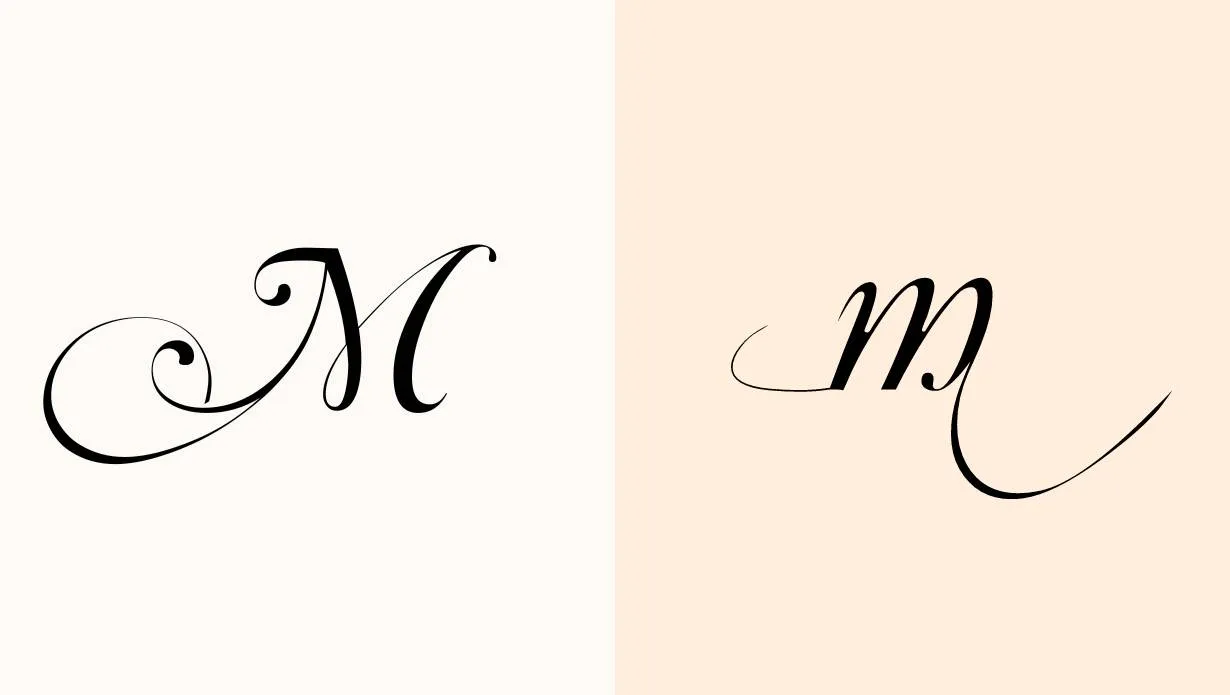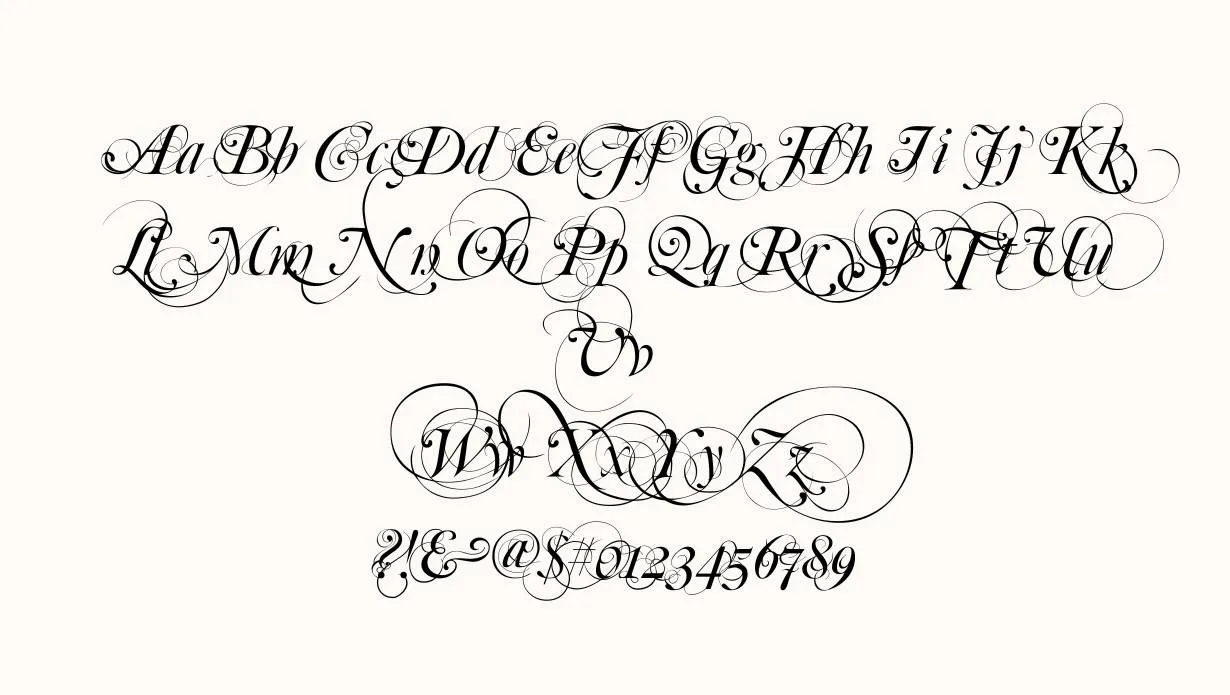
Mutlu Font was designed by Murat Savaskan. It is a handwritten font and has a very beautiful look with an Italic writing style which makes it more classy. It has amazing features like it contains 286 characters, 245 glyphs, and 1000 units per Em. Unicode supported 1.0 and BMP only. The weight of the font is semi-light and it’s medium (normal).
You can use this font for making handwritten quotes, wedding invitations, fashion covers, logos, and much more. It supports the file format True Type Font which allows you to use this font on different devices such as Windows, PC, and MAC.